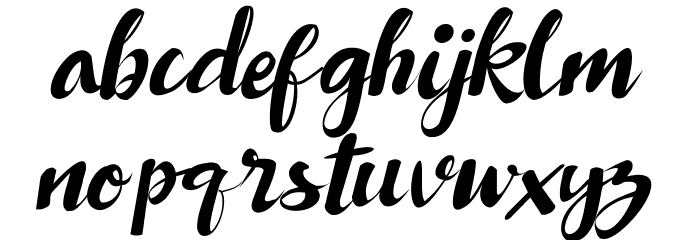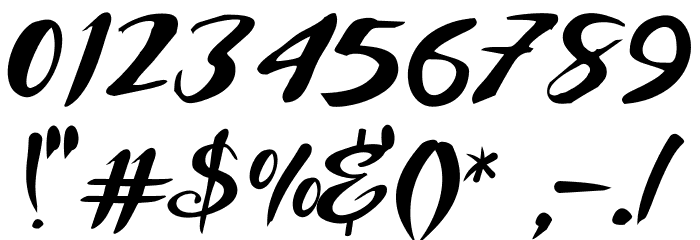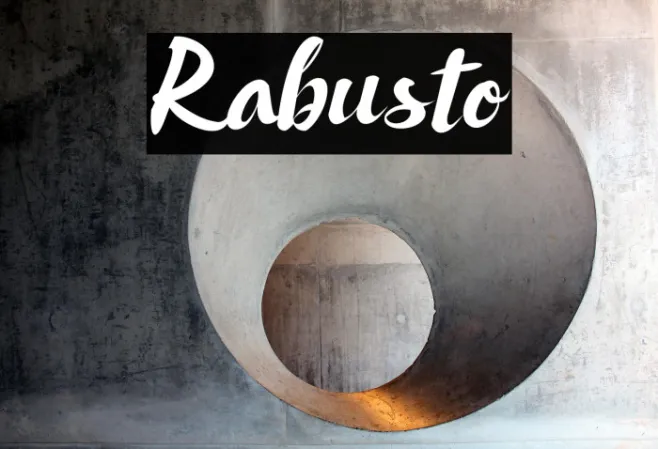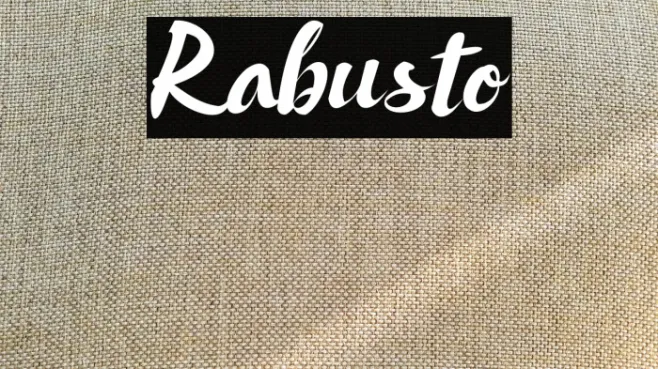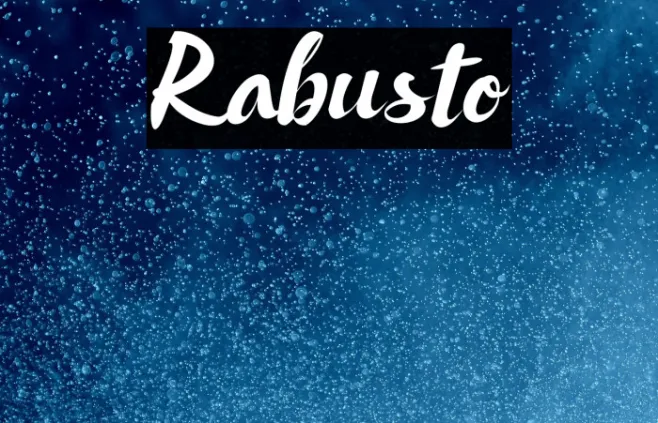
Rabusto Font
This font features a bold and expressive script style, characterized by its fluid and dynamic strokes. The letters are connected in a cursive manner, giving it a handwritten feel that is both elegant and energetic. The uppercase letters are particularly striking, with sweeping curves and a sense of movement that captures attention. The lowercase letters maintain this fluidity, ensuring consistency across the typeface. Numbers and special characters are crafted with the same attention to detail, making them suitable for a variety of uses. The overall appearance is modern yet timeless, making it versatile for both digital and print media.
A bold, expressive script font with fluid, dynamic strokes and a handwritten feel.
- Proposed Projects: Ideal for branding, invitations, greeting cards, and any project requiring a personal touch.
- Use Case: Logos, Invitations, Greeting Cards